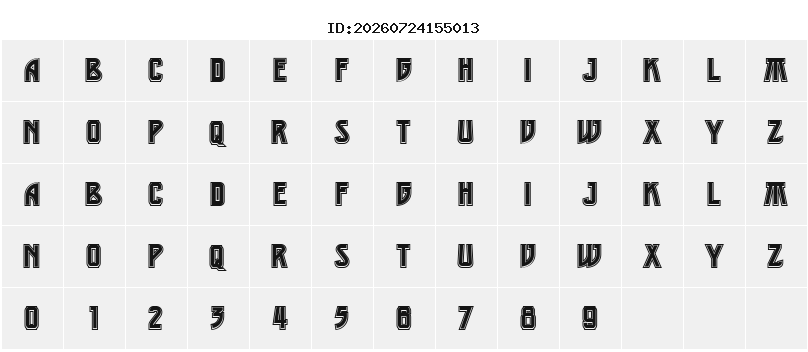
MiddleEarthNF Preview
• Font Name: MiddleEarthNF
• Full Font Name: MiddleEarthNF Medium
• Version: Version 1.00 2003 initial release
• PostScript Name: MiddleEarthNF-Medium
• Character Count: 192
• Copyright: Copyright (c) 2003 Nick Curtis. All Rights Reserved.
• Designer: Nick Curtis
• Manufacturer: Nick's Fonts
About MiddleEarthNF.ttf
MiddleEarthNF.ttf is a modern, elegant sans-serif font designed for ultimate readability and visual harmony. Perfect for branding, headlines, web design, and print materials.